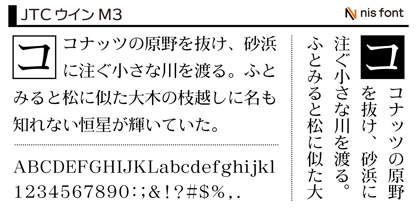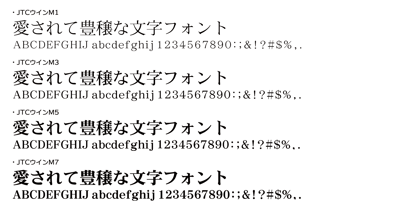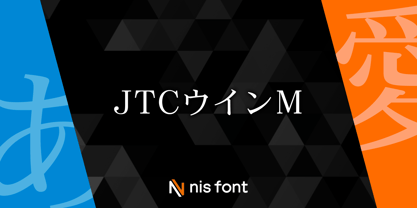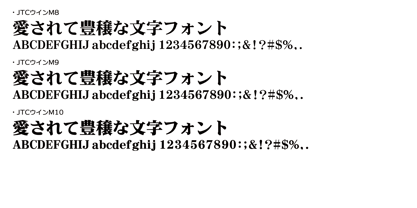
OT-NIS_M
by NIS Fonts
The OT-NIS_M Font Family was designed by and published by NIS Fonts. OT-NIS_M contains 7 styles and family package options. More about this family
The "OT-NIS_M Series" is the standard Mincho typeface from Nisfont and offers seven different weight variations (family fonts) ranging from M1 to M10, including this product. The thinner weights feature clarity and a sense of cleanliness, while the thicker weights bring a more elegant, dignified, and solid appearance. Kana characters, such as the noticeably rounded "り," exude a sense of fullness and richness. Supports the JIS2004 character set.
OT-NIS_M